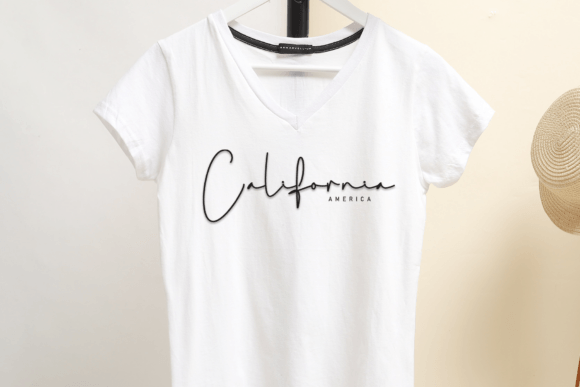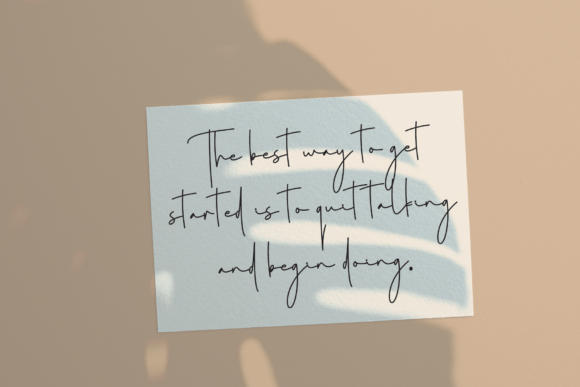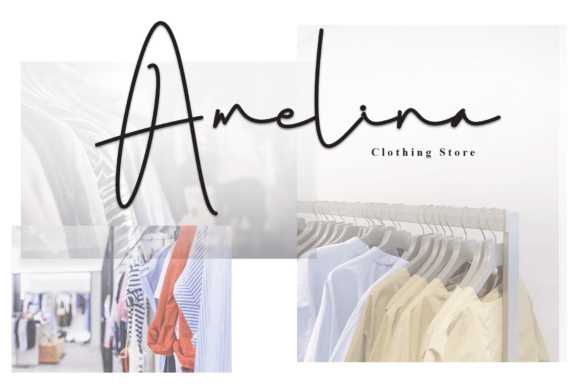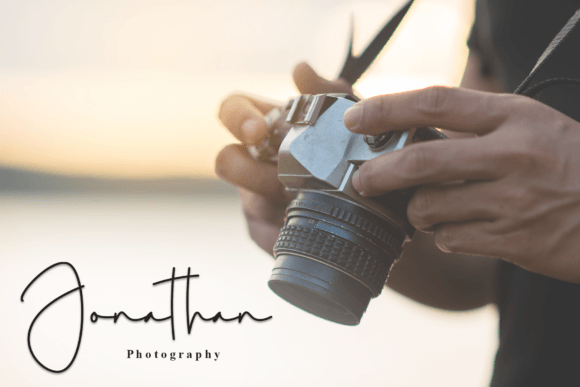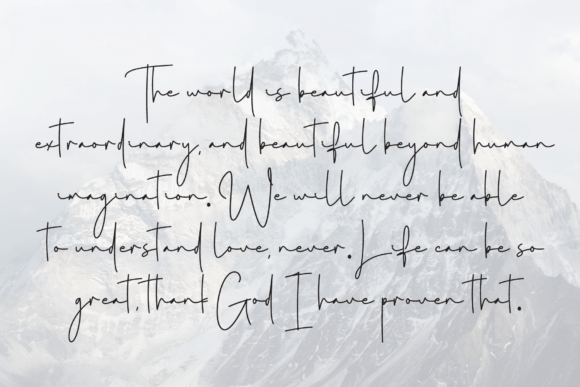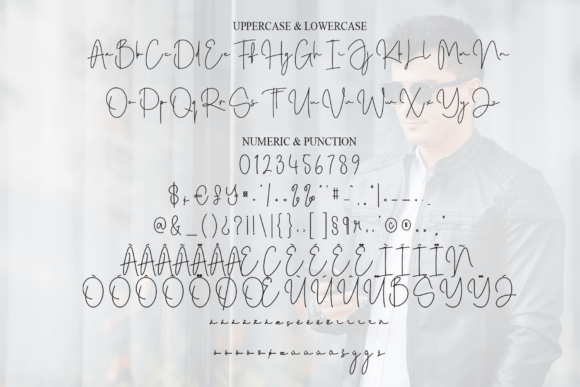
Introducing Handsome Font: Elevate Your Designs with Elegance and Personality
In the world of typography, a font can make or break the aesthetic of a design. For those seeking a stylish and approachable look, the Handsome font is an excellent choice. This beautifully crafted handwritten font boasts a clean and elegant appearance, perfect for adding a personal touch to various creative projects. In this article, we’ll dive into the characteristics of the Handsome font, its uses, and why it’s a valuable addition to any designer’s or crafter’s toolkit.
The Characteristics of Handsome Font
Handsome is a stylish handwritten font that exudes a sense of sophistication and warmth. Its letters are smooth and flowing, making it easy on the eyes and perfect for reading. The font’s clean lines and elegant curves create a balanced look that’s both refined and approachable. Whether you’re working on a formal invitation, a quote, or any other text that requires a personal touch, Handsome is an excellent choice.
Uses of Handsome Font
The versatility of the Handsome font makes it suitable for a wide range of applications. Here are a few ideas to get you started:
- Invitations: Add a touch of elegance to your wedding invitations, birthday party invites, or any other special occasion with Handsome font.
- Quotes and Typography: Use Handsome to create visually appealing quotes, posters, or social media graphics that require a personal and stylish touch.
- Branding and Packaging: Incorporate Handsome into your brand’s identity to convey a sense of warmth and approachability.
- Stationery and Journaling: Add a personal touch to your stationery, journals, or planners with the elegant and smooth lines of Handsome font.
Why Choose Handsome Font?
So, what sets Handsome font apart from other fonts in its category? Here are a few reasons why designers and crafters love working with Handsome:
- Readability: Handsome font is designed to be easy to read, making it perfect for longer texts or quotes.
- Elegance: The font’s smooth lines and elegant curves create a sophisticated look that’s perfect for formal or informal designs.
- Versatility: Handsome font can be used in a variety of contexts, from digital designs to print materials.
- Personal Touch: The handwritten nature of Handsome font adds a warm and friendly feel to any text, making it perfect for designs that require a personal touch.
Tips for Using Handsome Font
To get the most out of Handsome font, here are a few tips to keep in mind:
- Pair with Other Fonts: Experiment with pairing Handsome with other fonts to create a unique and visually appealing combination.
- Adjust Font Size: Adjust the font size to suit your design needs, ensuring that the text remains clear and readable.
- Use in Combination with Images: Combine Handsome font with high-quality images to create stunning visual content.
In conclusion, the Handsome font is a stylish and elegant addition to any designer’s or crafter’s toolkit. Its smooth lines, elegant curves, and readability make it perfect for a wide range of applications, from invitations and quotes to branding and packaging. With its versatility, elegance, and personal touch, Handsome font is sure to elevate your designs and add a warm and friendly feel to your text.
Whether you’re a seasoned designer or a crafty DIY enthusiast, Handsome font is an excellent choice for anyone looking to add a touch of sophistication and personality to their designs. So why not give it a try and see how Handsome font can transform your creative projects?